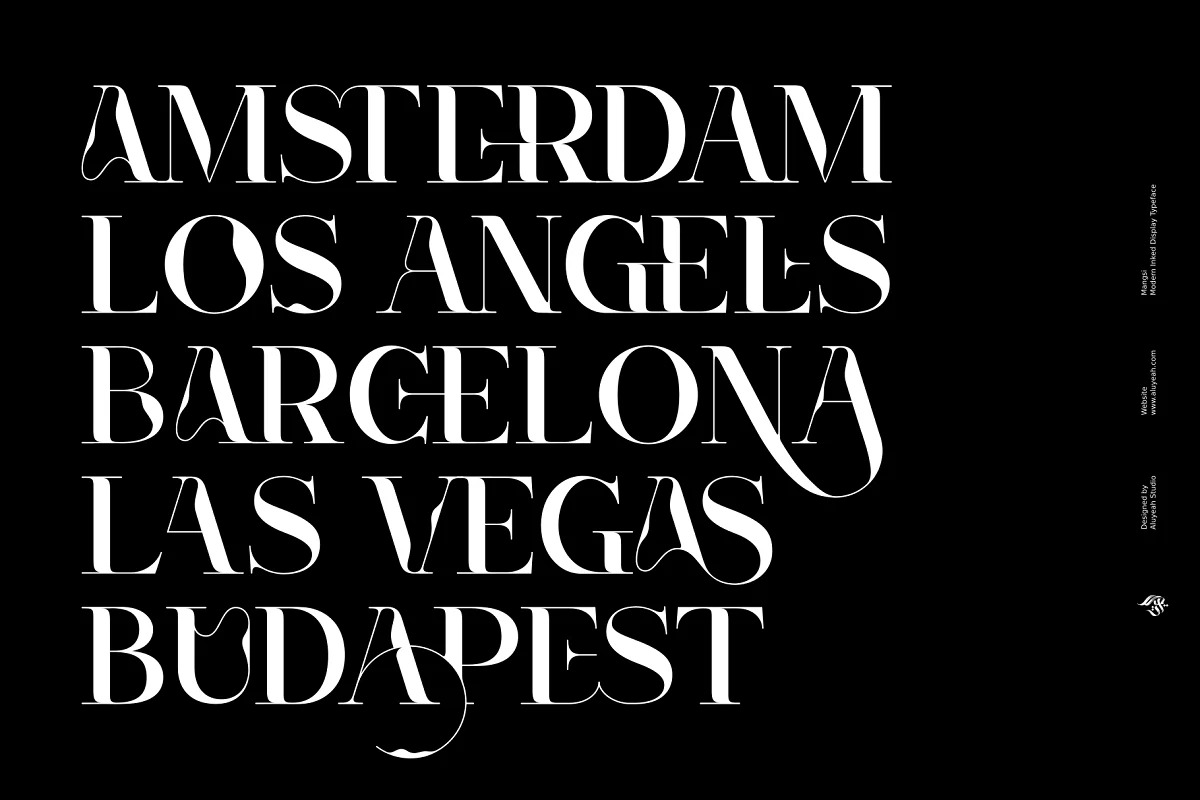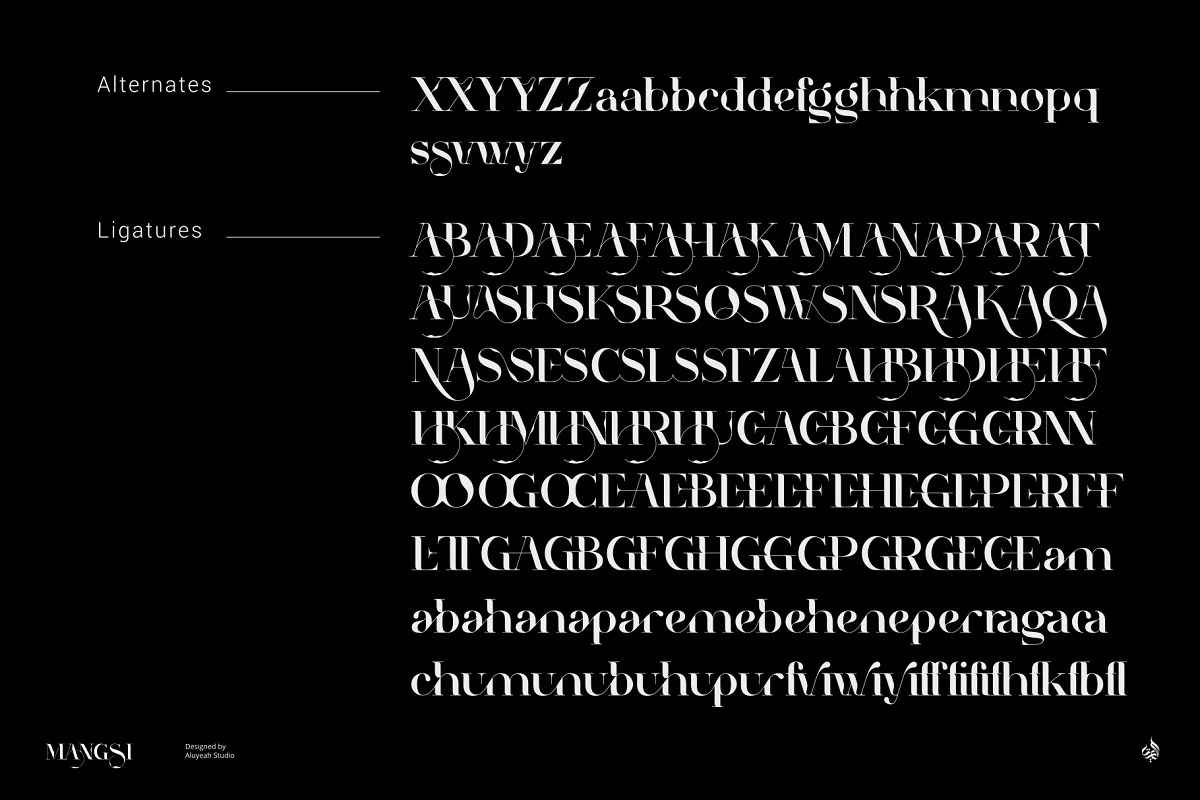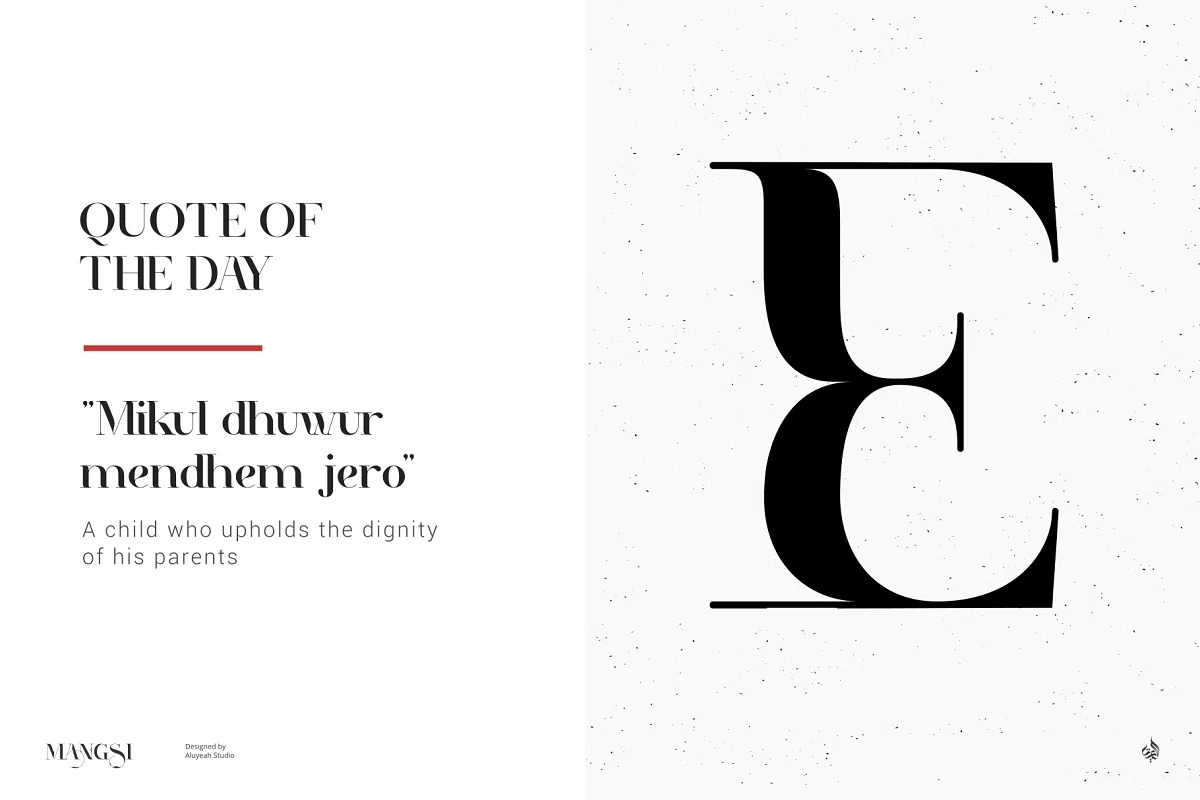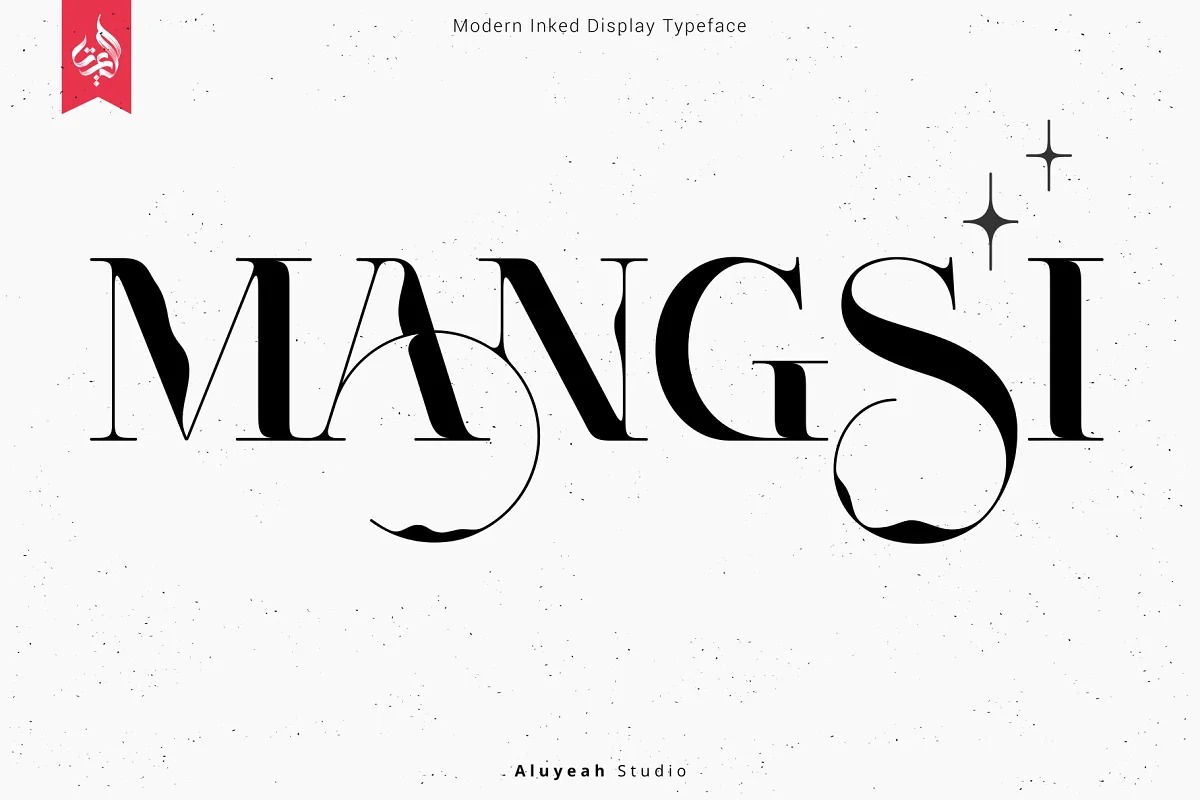
Mangsi Serif Font
This typeface designed by Aluyeah Studio is a serif font that is very unique, with the basic form of a serif font with hooks that have a little ornament in some letters that makes this font different from other serif fonts. Has a vintage feel so it is suitable for classic and retro designs.
Mangsi is a modern inked display typeface that unites the beauty of the old lines with the clean modern lines. A simple, yet distinctive, elegant font that can be applied to many areas of design. Coming with 170+ stunning and super easy to use alternates and ligatures.